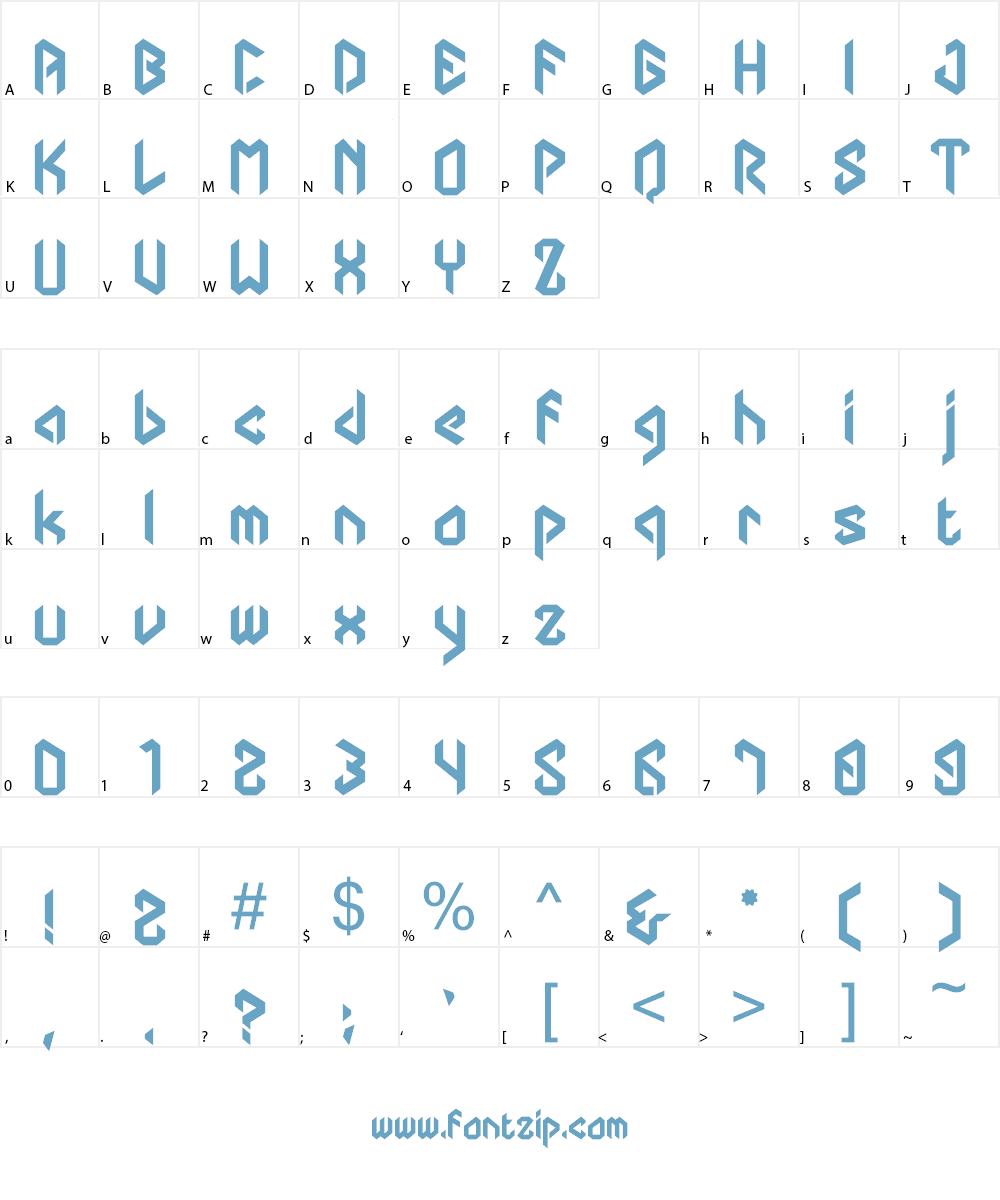
This font was inspired by DIPANEGARA LOGO that is dp. I like the DIPANEGARA LOGO so that i try for making a font is according to DIPANEGARA LOGO theme.